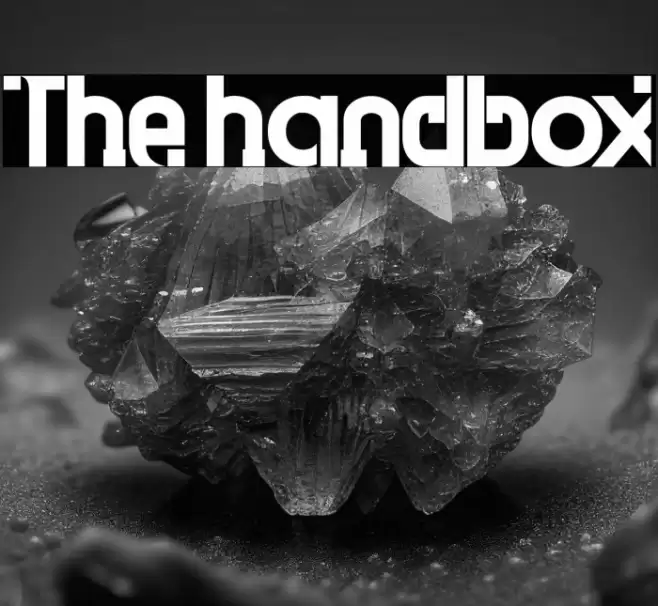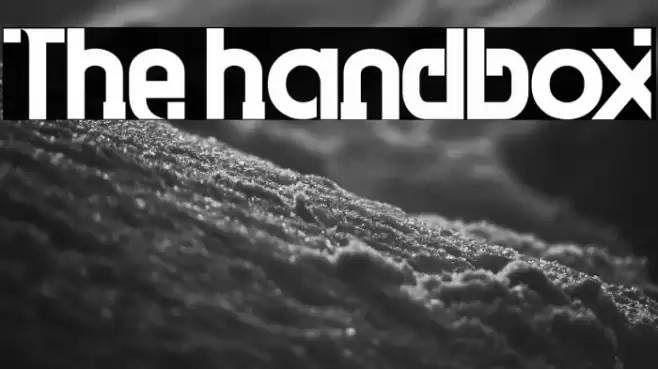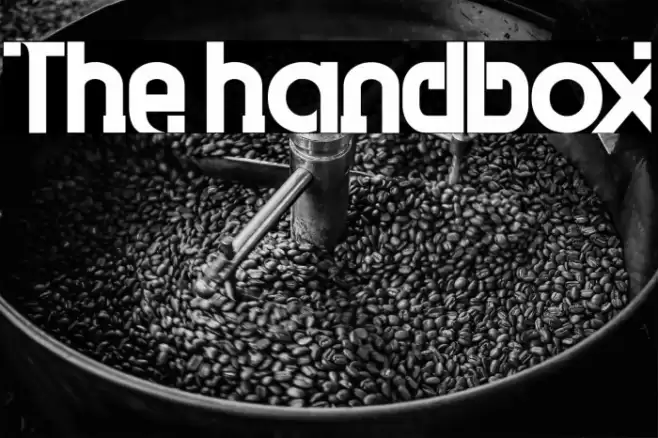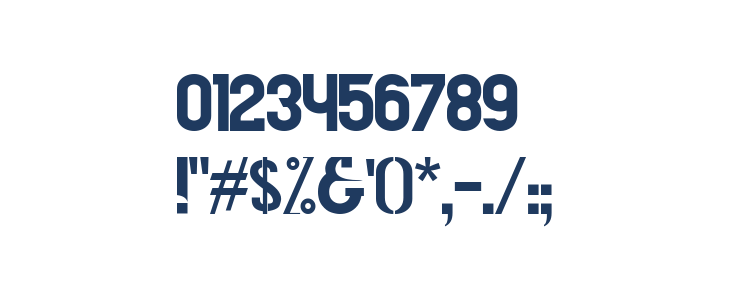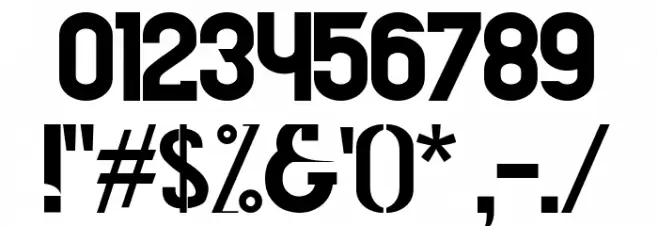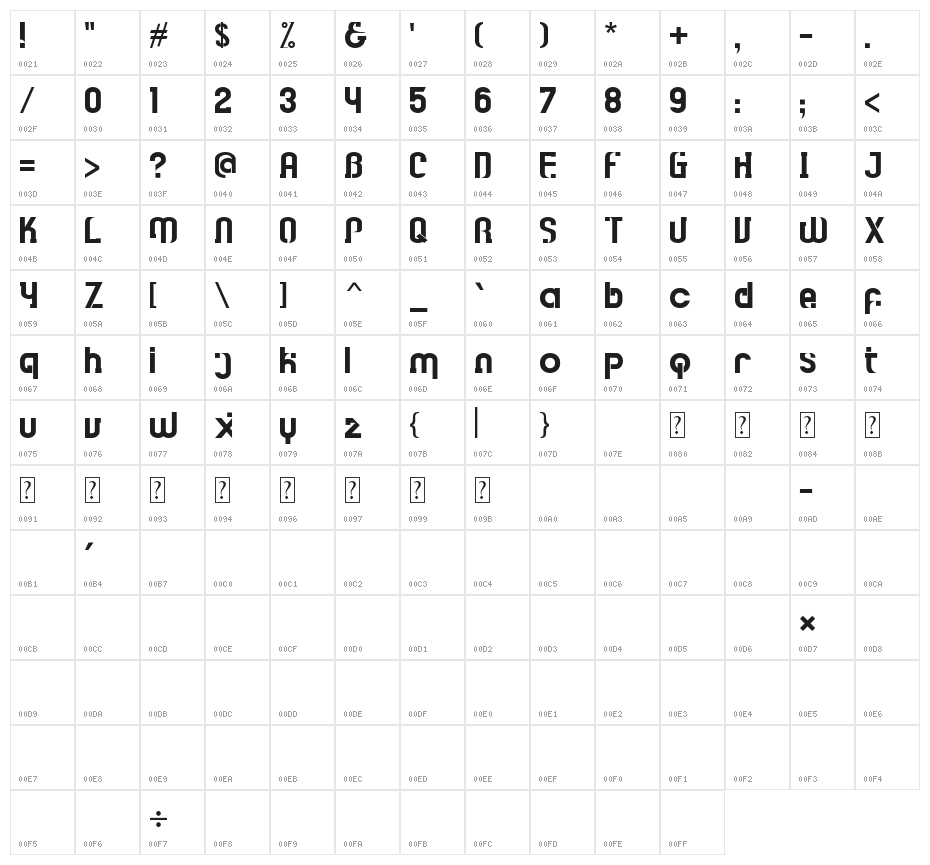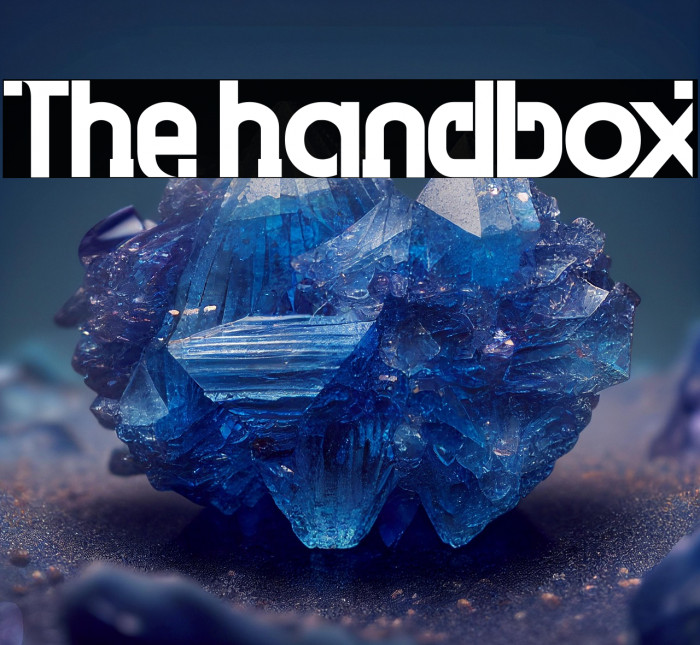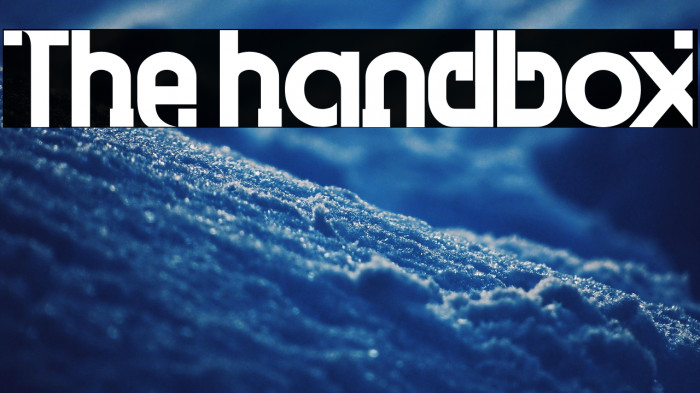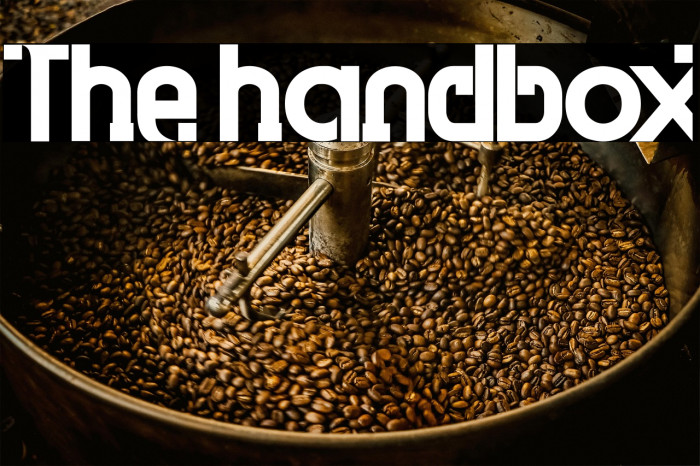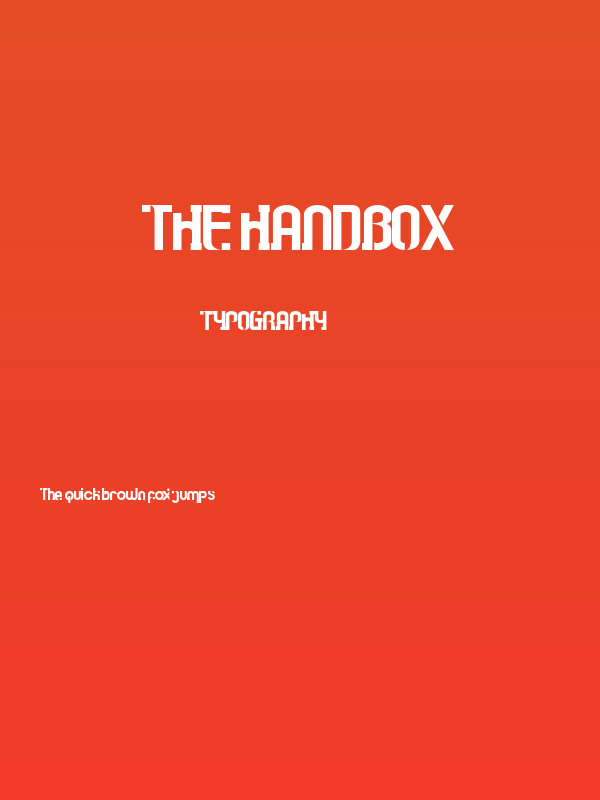
The handbox Font
The handbox Description
This font features a bold and modern design with a unique geometric style. The characters are crafted with a combination of sharp angles and smooth curves, creating a striking visual impact. The uppercase letters are particularly distinctive, with a futuristic appearance that stands out. The lowercase letters maintain the same geometric aesthetic, ensuring consistency throughout the typeface. Numbers and special characters are designed to match the overall style, making this font versatile for various applications. Its bold weight and modern look make it suitable for eye-catching designs.
A bold, geometric font with a modern, futuristic style from Regular fonts.
- Proposed Projects: Ideal for branding, posters, headlines, and digital media where a modern and bold statement is needed.